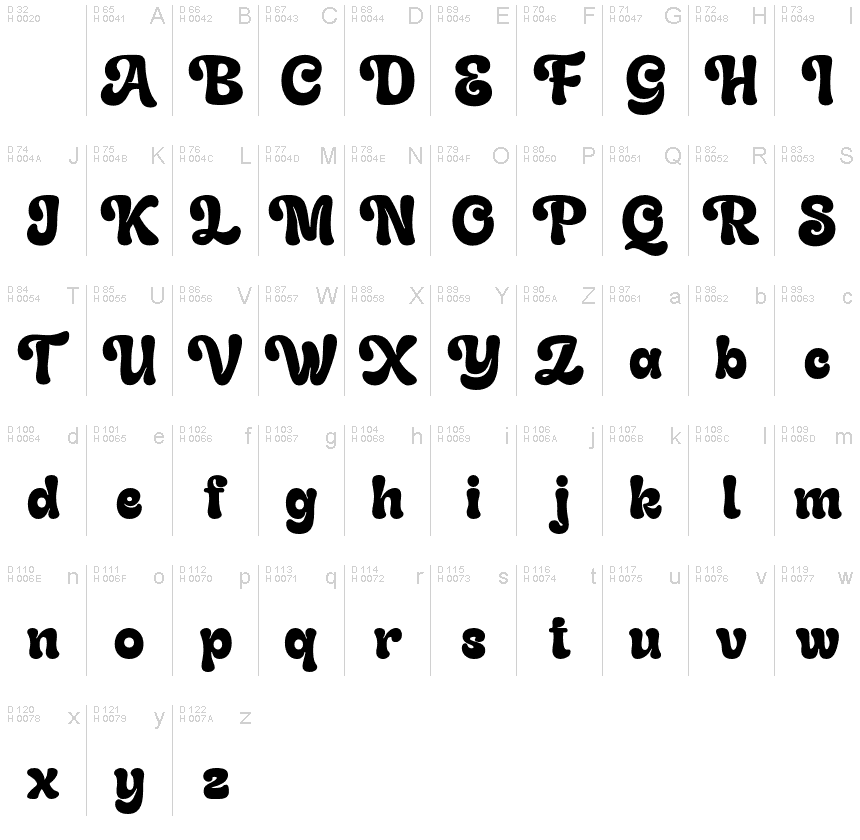
GladoliaDEMO-Regular
Gladolia, designed by Dharmas Studio, is a groovy display font that exudes boldness.
Its captivating curves and vibrant style make it perfect for designing eye-catching logos, album covers, and posters. The font's unique playfulness adds a touch of retro charm to any project, making it an excellent choice for vintage-themed packaging designs or trendy fashion editorials. With its strong presence and creative energy, Gladolia is also well-suited for branding campaigns seeking to make a lasting impression.